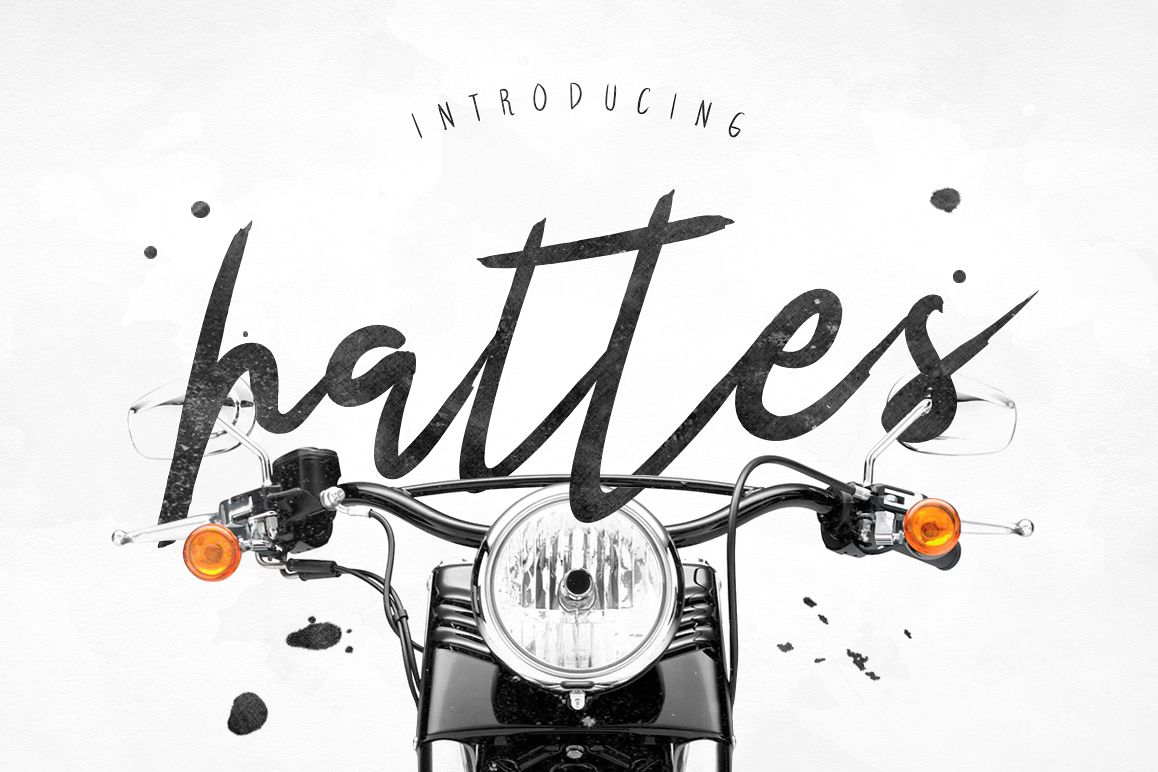
Hattes Typeface
by Maulana Creative
Give your designs an authentic brush handcrafted feel. Hattes Typeface is perfectly suited to stationery, logos and much more.Included: